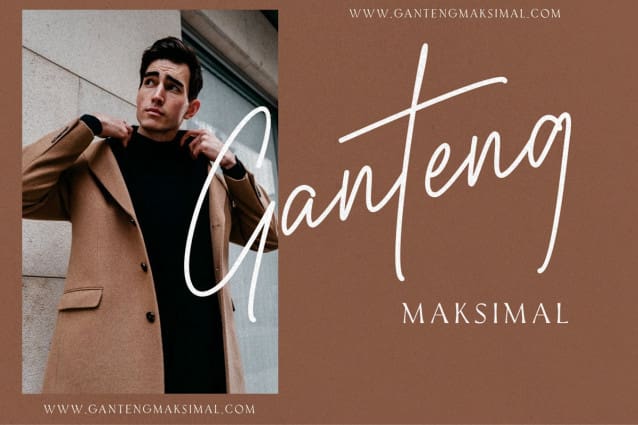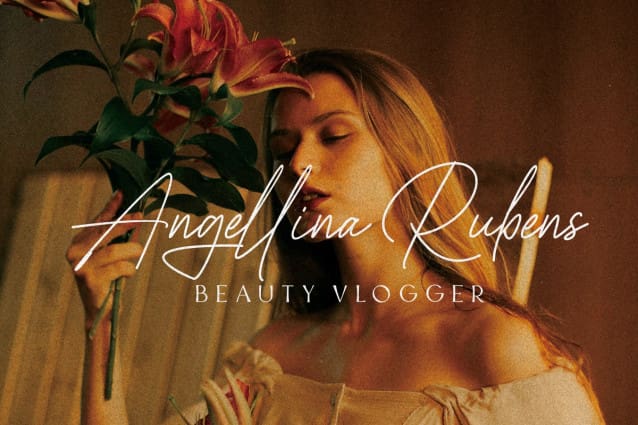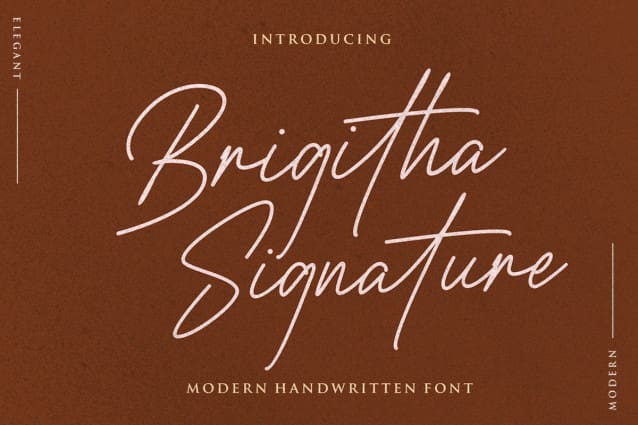
Brigitha Signature Font
Brigitha Signature Font is our handcrafted signature with elegant signature fonts, now on sale. Perfectly curated to infuse your designs with a touch of luxury, this font is a testament to timeless elegance and personal style.
Our signature fonts are meticulously crafted, ensuring each character flows effortlessly, capturing the essence of a true handwritten signature. With graceful strokes and seductive curves, this font offers unparalleled versatility, making it an ideal choice for a wide range of design projects.